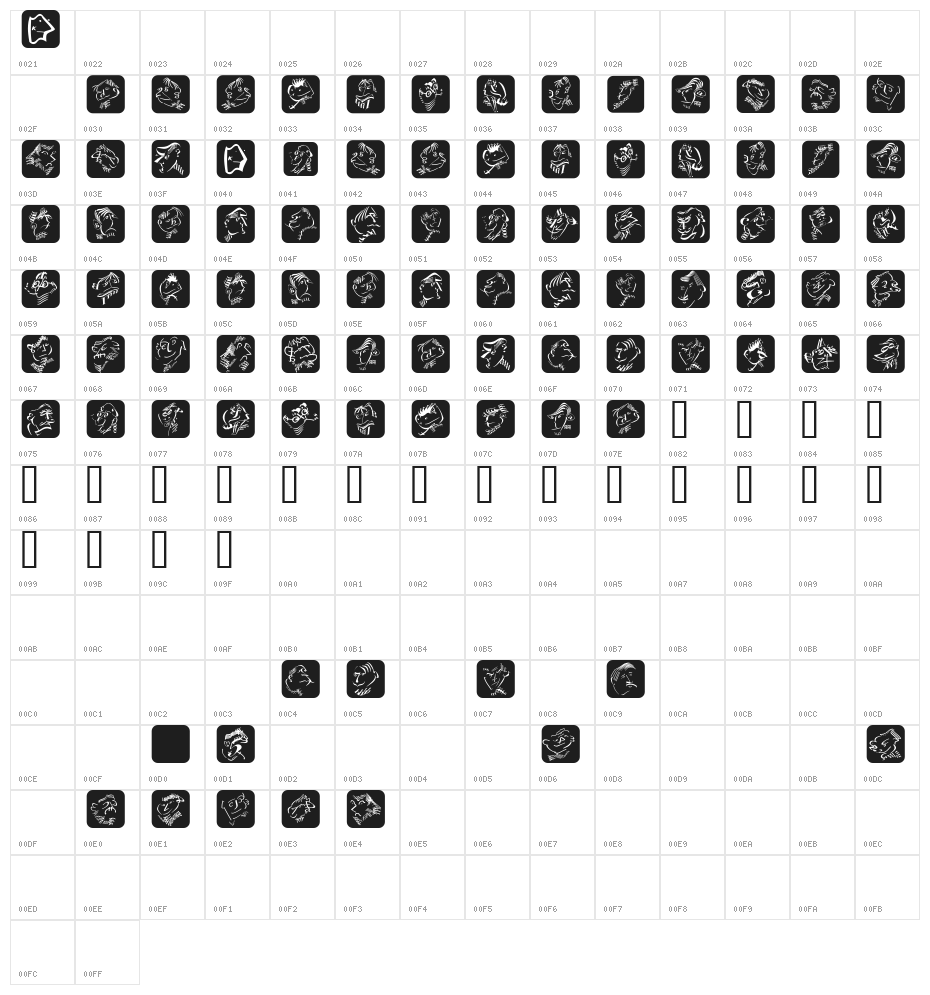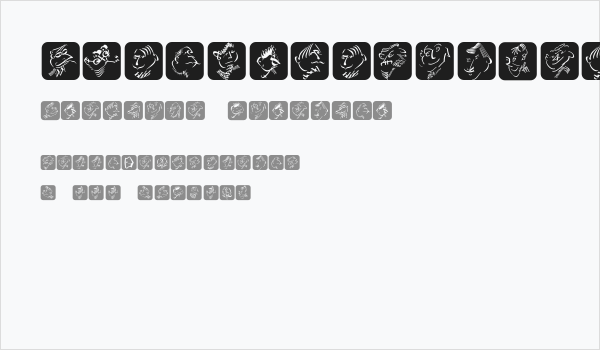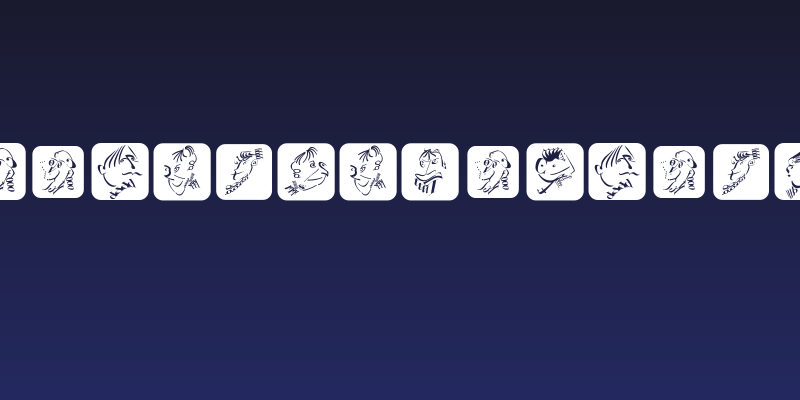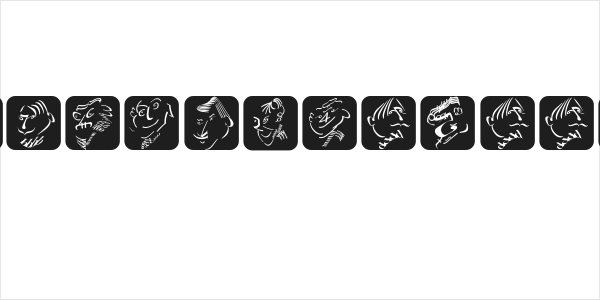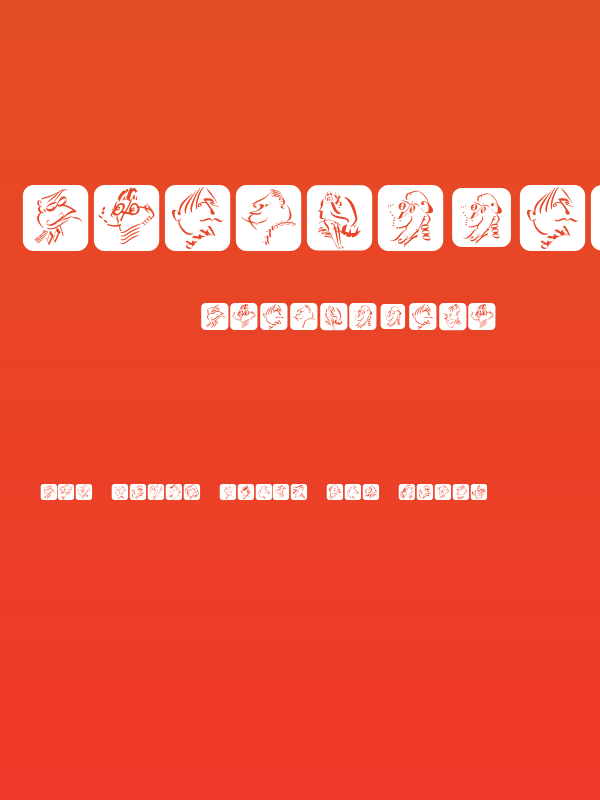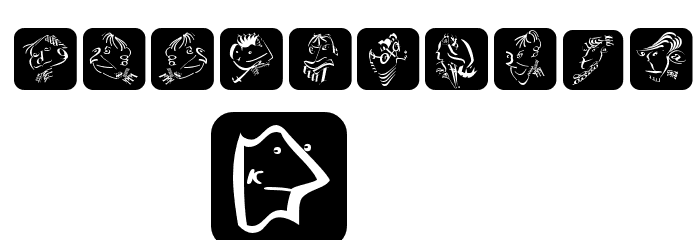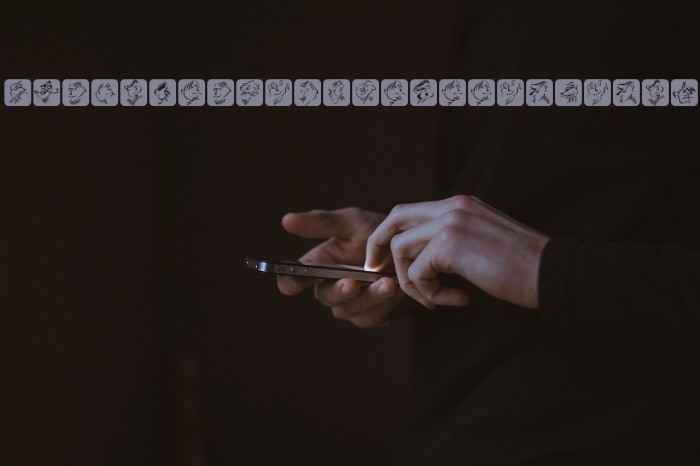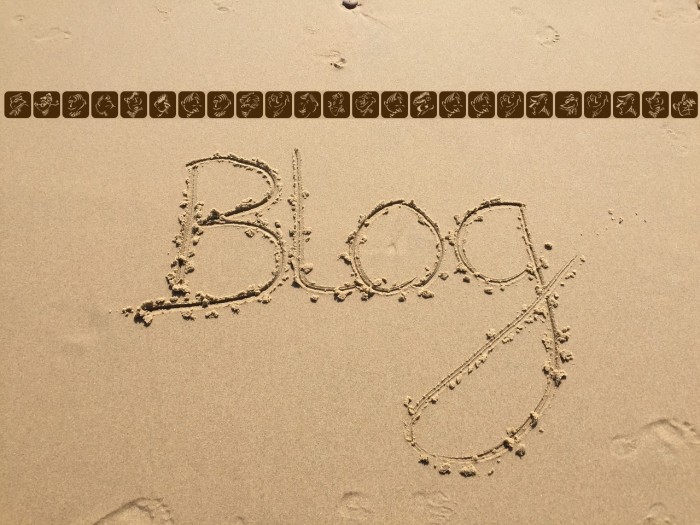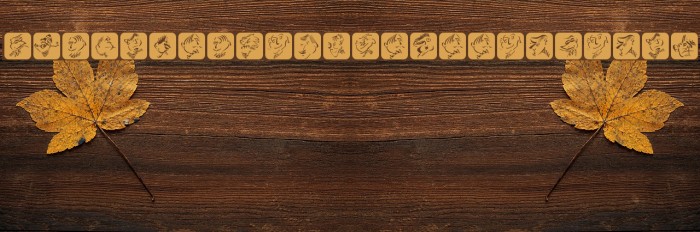
TypographicHeadPaintings Font
TypographicHeadPaintings Description
A highly decorative and artistic font consisting of abstract, hand-drawn head illustrations for each character, rendered in white lines on black rounded squares. Each glyph is unique, expressive, and visually playful, resembling quick sketch portraits rather than traditional letterforms.
| Overall Style | Artistic, Playful, Abstract, Decorative |
| Use Case | Logos, Posters, Titles, Artistic projects |
| Proposed Projects | Art posters, album covers, creative branding, children's books, editorial illustrations, event invitations. |